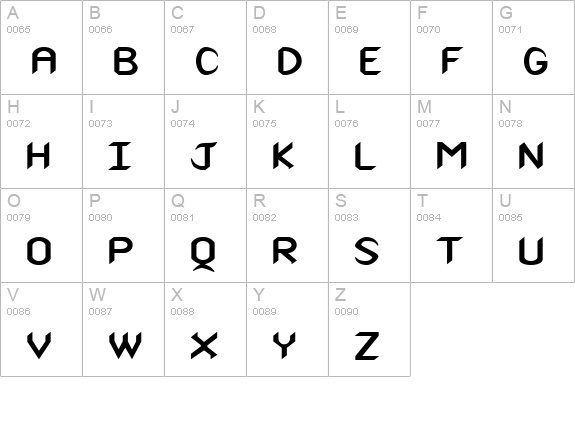
Spike-Extended Bold is a strong, high-contrast, extended-width variant in the Spike typeface family \xE2\x80\x94 well suited to headlines, attention-grabbing titles, and strong calls-to-action.
Introducing Spike-Extended Bold font, a captivating and commanding typeface that will leave a lasting impression on any design project. Its bold and assertive character radiates confidence, making it perfect for headlines, titles, and any bold statement you wish to convey. Spike-Extended Bold font features elongated letterforms with sharp edges, adding a touch of sleekness and modernity to your designs. Each letter is meticulously crafted with precision, ensuring legibility and readability even at smaller sizes. This font's versatility is unparalleled, allowing you to effortlessly incorporate it into a wide range of design projects. Whether you're working on branding, advertising, packaging, or editorial design, Spike-Extended Bold font will elevate your work to new heights. But what sets Spike-Extended Bold font apart from the rest is its availability - it's completely free! Yes, you read that right. This exceptional typeface is freely available to download at FontsMarket.com, a trusted source for high-quality fonts. By offering Spike-Extended Bold font for free, we aim to make it accessible to designers and creatives from all walks of life, regardless of their budget. We believe that everyone deserves access to remarkable typography to bring their visions to life. So, what are you waiting for? Embrace the power of Spike-Extended Bold font and unlock a world of endless design possibilities. Download it now from FontsMarket.com, and let your creativity soar to new heights.